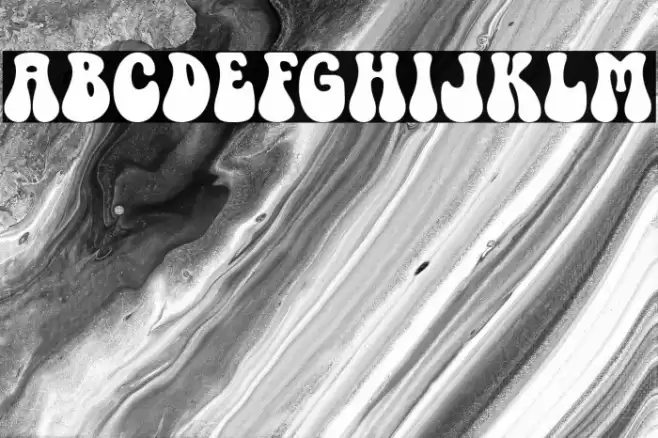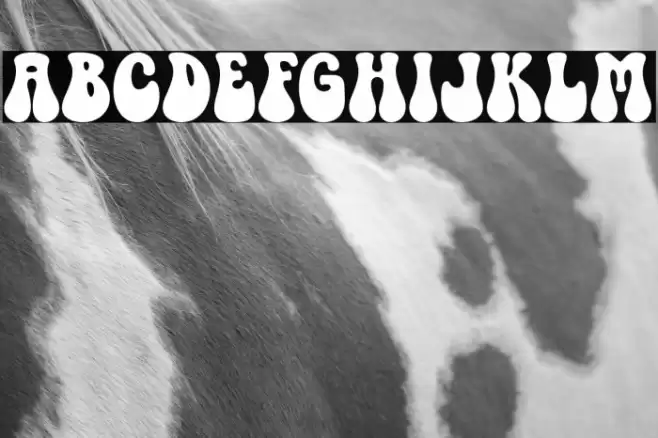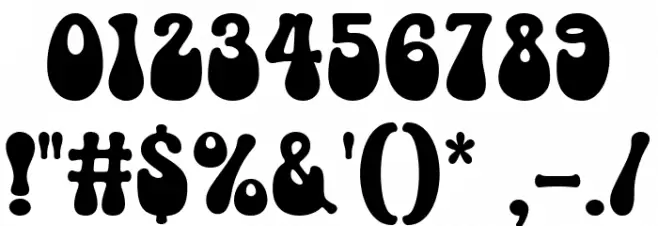
Retro Cookies Font
Retro Cookies Description
This font exudes a playful and retro vibe, characterized by its bold, rounded shapes and whimsical curves. The letters have a bubbly appearance, reminiscent of 1960s and 1970s design aesthetics. Each character is uniquely crafted with exaggerated, droplet-like forms that create a sense of movement and fun. The font's thick strokes and high contrast make it highly legible while maintaining a decorative flair. Its distinct style is perfect for capturing attention and adding a nostalgic touch to any project.
A playful, retro font with bold, rounded shapes and whimsical curves from Uncategorized fonts.
- Font: Retro Cookies
- Proposed Projects: Ideal for vintage-themed posters, playful branding, retro merchandise, and eye-catching headlines.
- Overall Style: Retro, Playful, Decorative